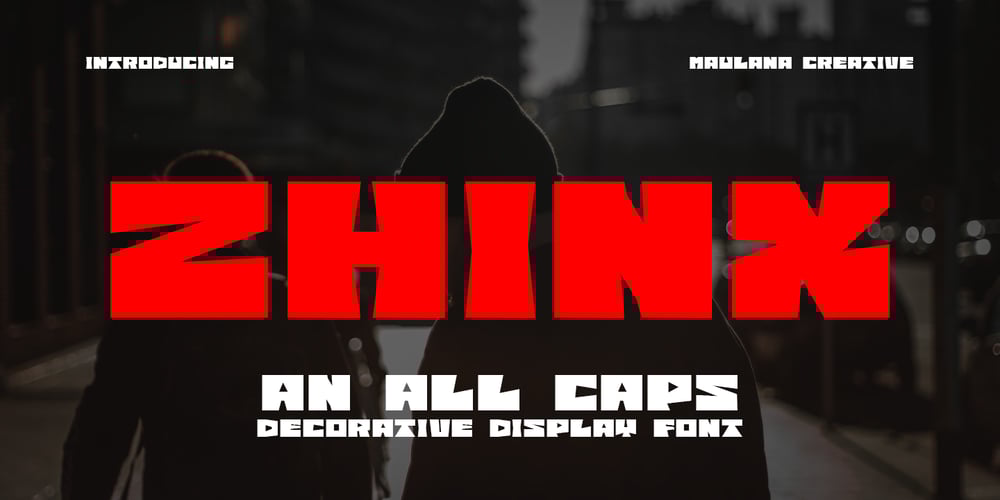
MC Zhinx Font Family was designed by Gilang Maulana and published by Maulana Creative. MC Zhinx contains 1 styles and family package options. Zhinx is a Square Decorative Display font. Heavy stroke, fun character with a bit of ligatures and alternates. To give you an extra creative work. Zhinx font support multilingual more than 100+ language. This font is good for logo design, Social media, Movie Titles, Books Titles, a short text even a long text letter and good for your secondary text font with script or serif. Make a stunning work with Zhinx font. All CAPS.Cheers,Maulana Creative